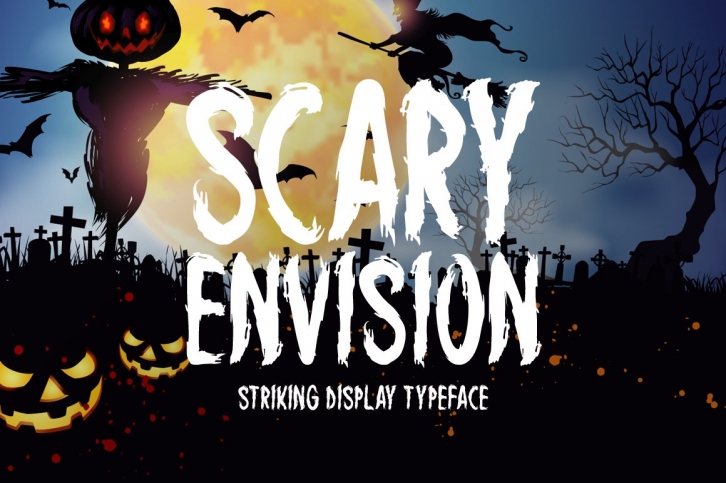
Scary Envision is a great font that was designed by Seemly Fonts. Imagine the amount of combinations you can create using this font! The archive is 12.5 MB and it was released on May 18, 2022. Scary Envision looks beautiful on wedding invitations, greeting cards, logos, posters, labels, t-shirt designs, logos, business cards and is perfect for use in ink or watercolor works, fashion, magazines, packaging and food menus, children's books and more!